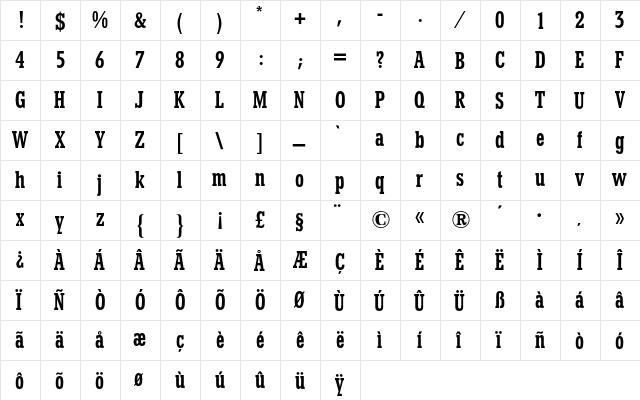
Beton BQ Regular
Beton BQ offers clean, dependable letterforms without strong stylistic allegiance, making it a practical choice for designers who need flexibility.